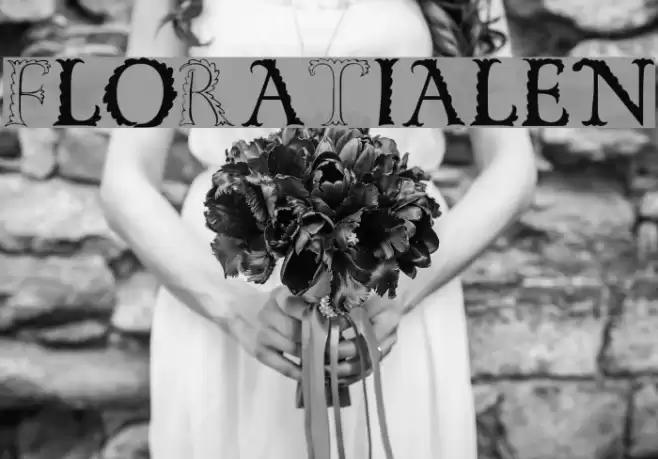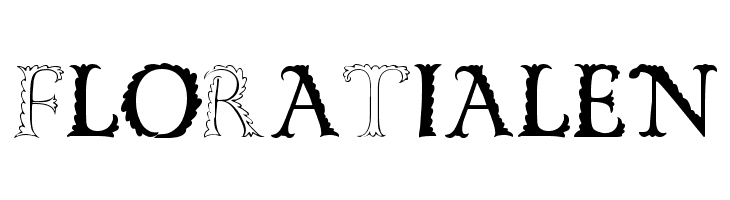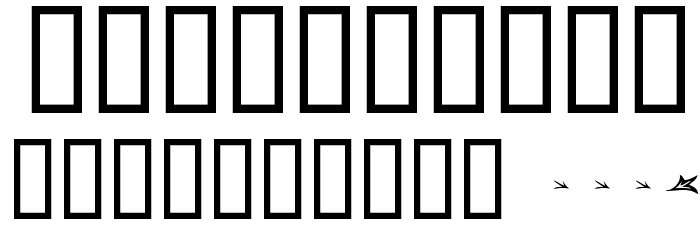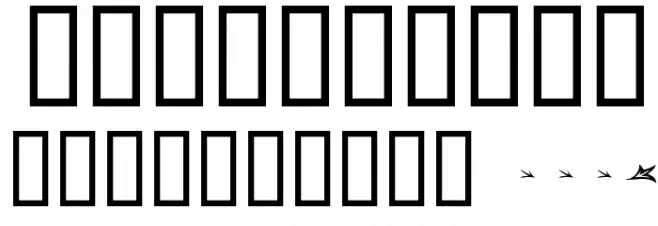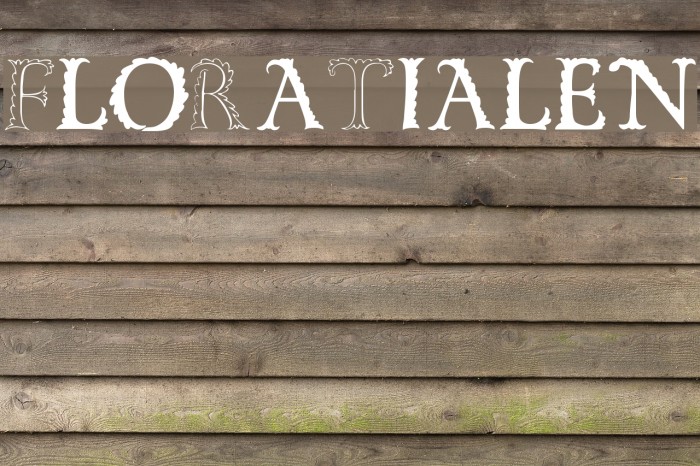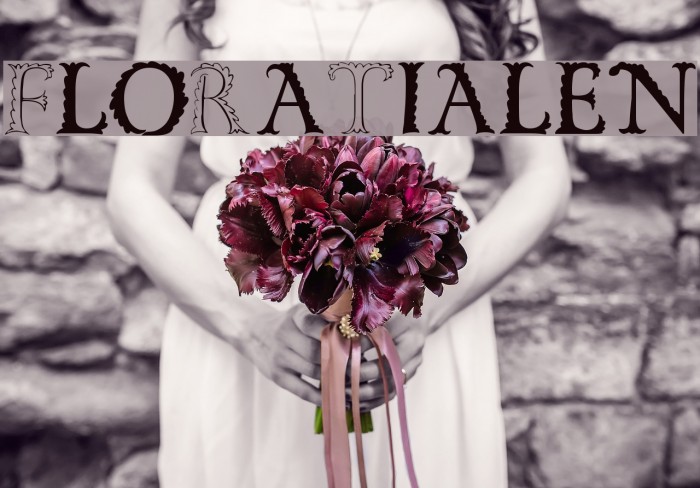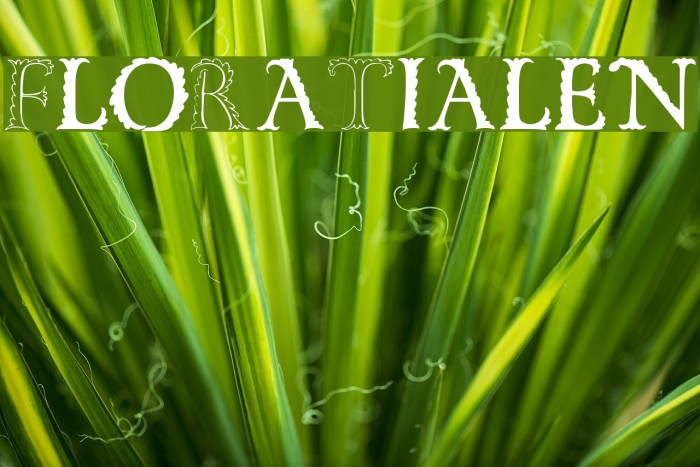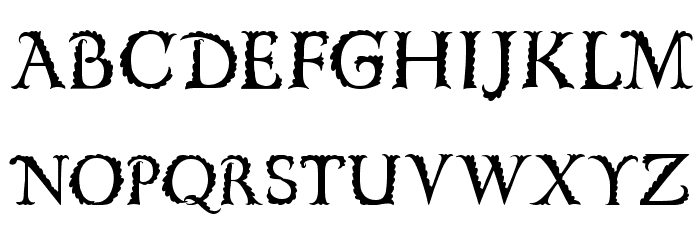
FloRaTialen Font
FloRaTialen Description
This font features a unique, decorative style with intricate, thorn-like embellishments on each character, giving it a distinct, organic appearance. The uppercase letters are bold and commanding, with sharp, pointed serifs that add a touch of elegance and drama. The lowercase letters maintain the same decorative elements, ensuring consistency throughout the typeface. The numbers and special characters are designed to match the overall aesthetic, making this font suitable for creative and artistic projects. Its high contrast in stroke thickness enhances readability while maintaining its decorative appeal.
A decorative font with thorn-like embellishments and high contrast strokes from Uncategorized fonts.
- Proposed Projects: Ideal for fantasy-themed designs, book covers, posters, and branding that requires a dramatic and artistic touch.